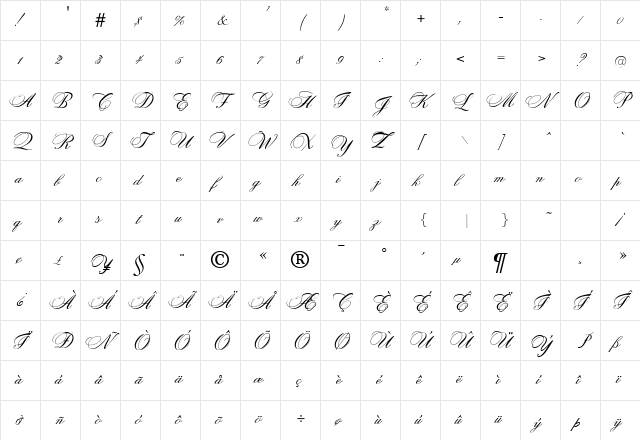
Cecilian Regular
Design Context for Cecilian Typeface
Cecilian is a composed and adaptable typeface that performs quietly and consistently across a wide range of design contexts.